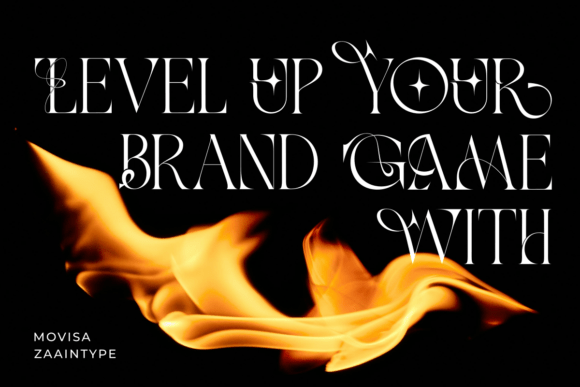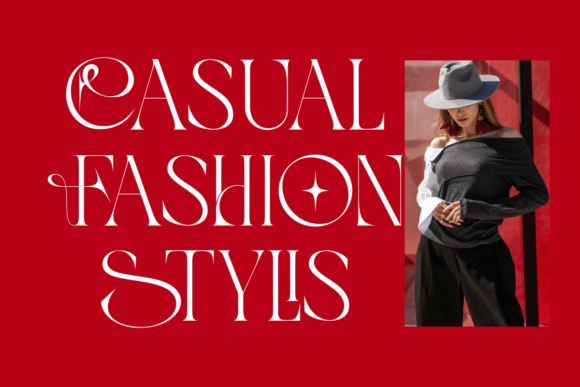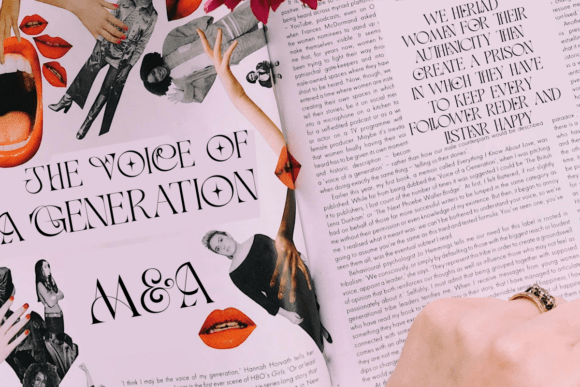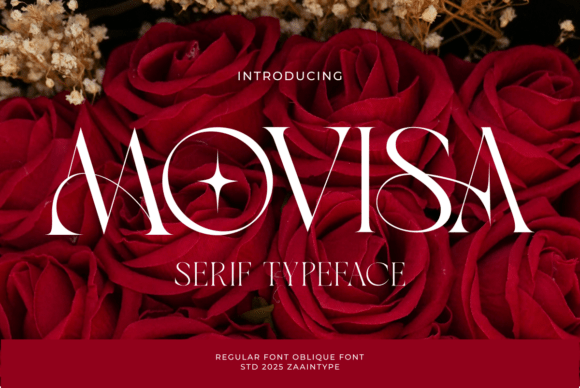
Introduction to Movisa Font
Movisa is a refined serif typeface that blends classic elegance with a touch of modern sophistication.
Featuring two distinct styles — Regular and Oblique — Movisa offers versatility for editorial layouts, branding, and timeless design projects Its fine contrast and smooth curves create a graceful reading experience, while its subtle details bring personality and charm to headlines and text alike.